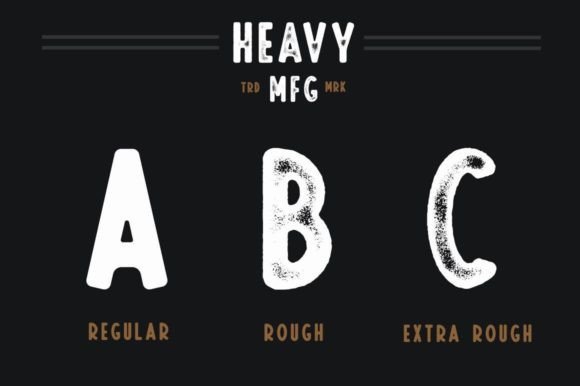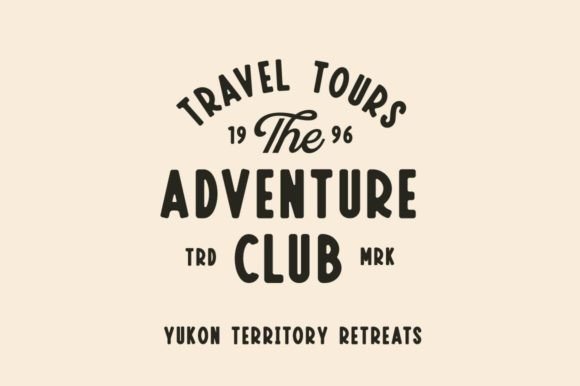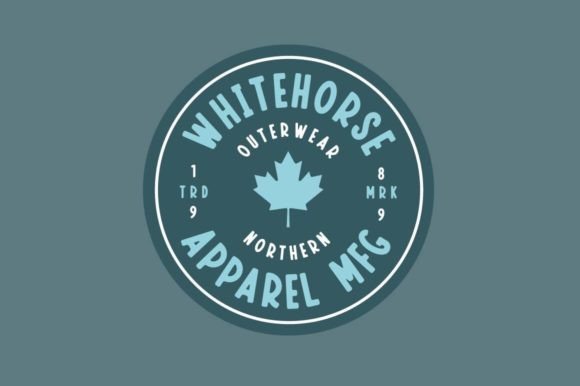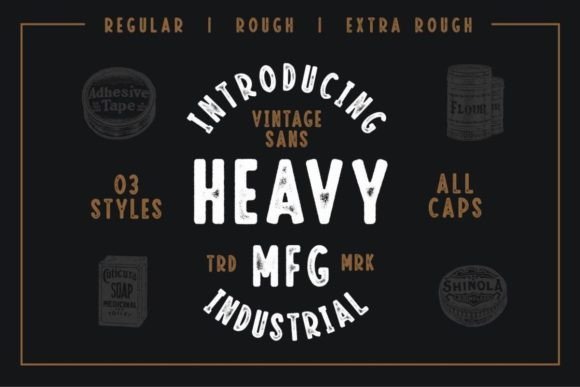
Introduction to Heavy Mfg Font
Heavy MFG is a vintage press-inspired sans serif that features 3 styles: Regular, Rough, and extra Rough.
Perfect for capturing the vintage aesthetic in any upcoming project Use Heavy MFG for creating vintage industrial badges, lockups, logos & labels.
Key Features of Heavy Mfg Font